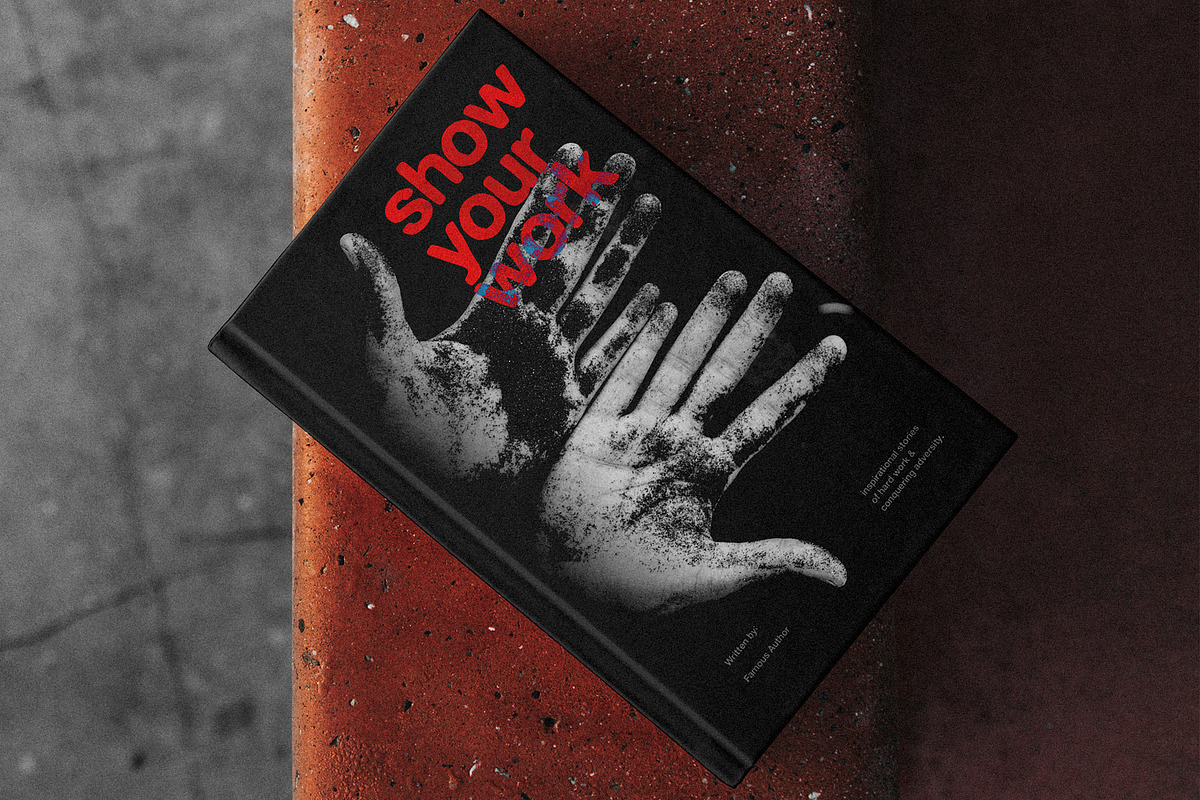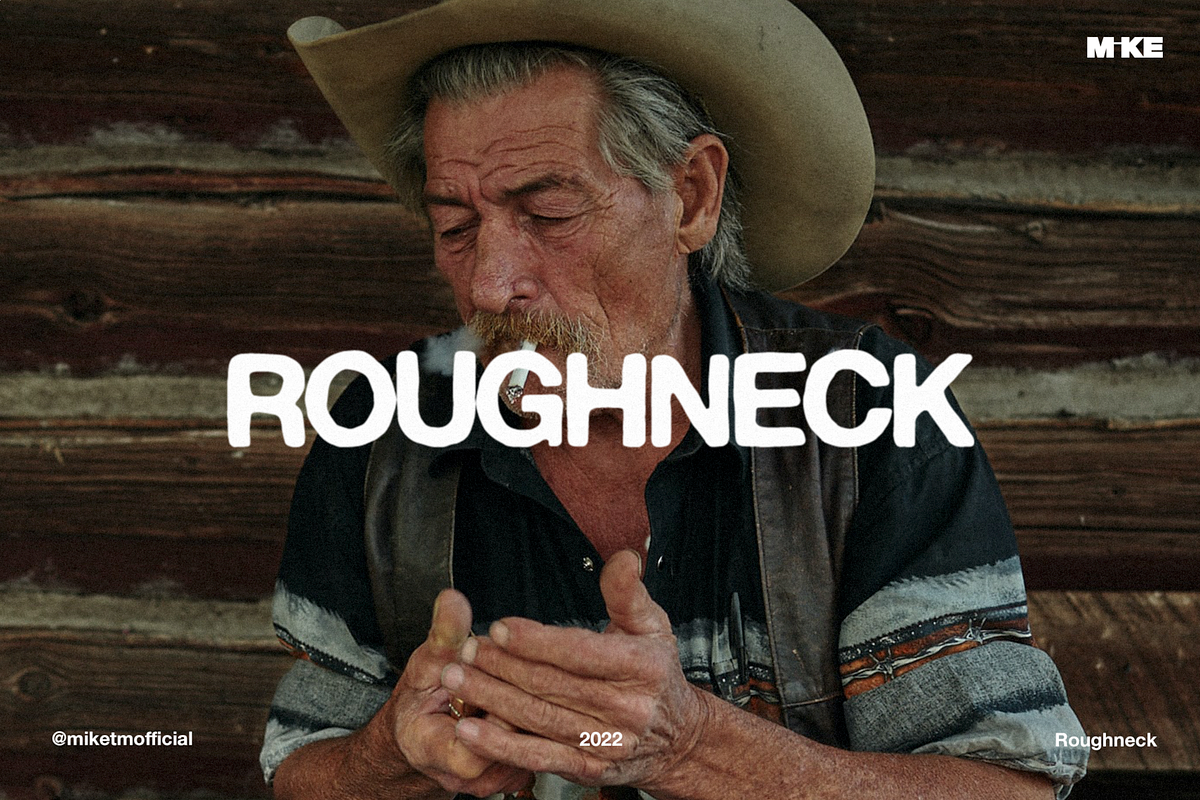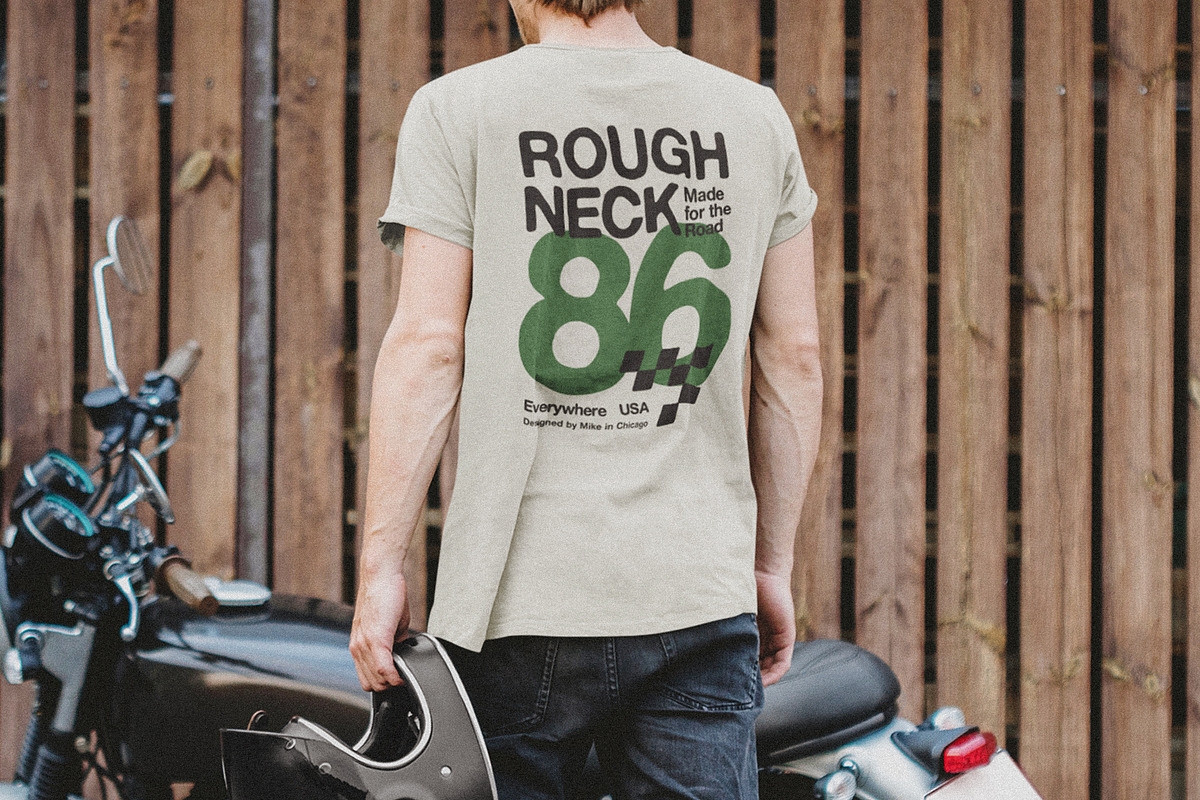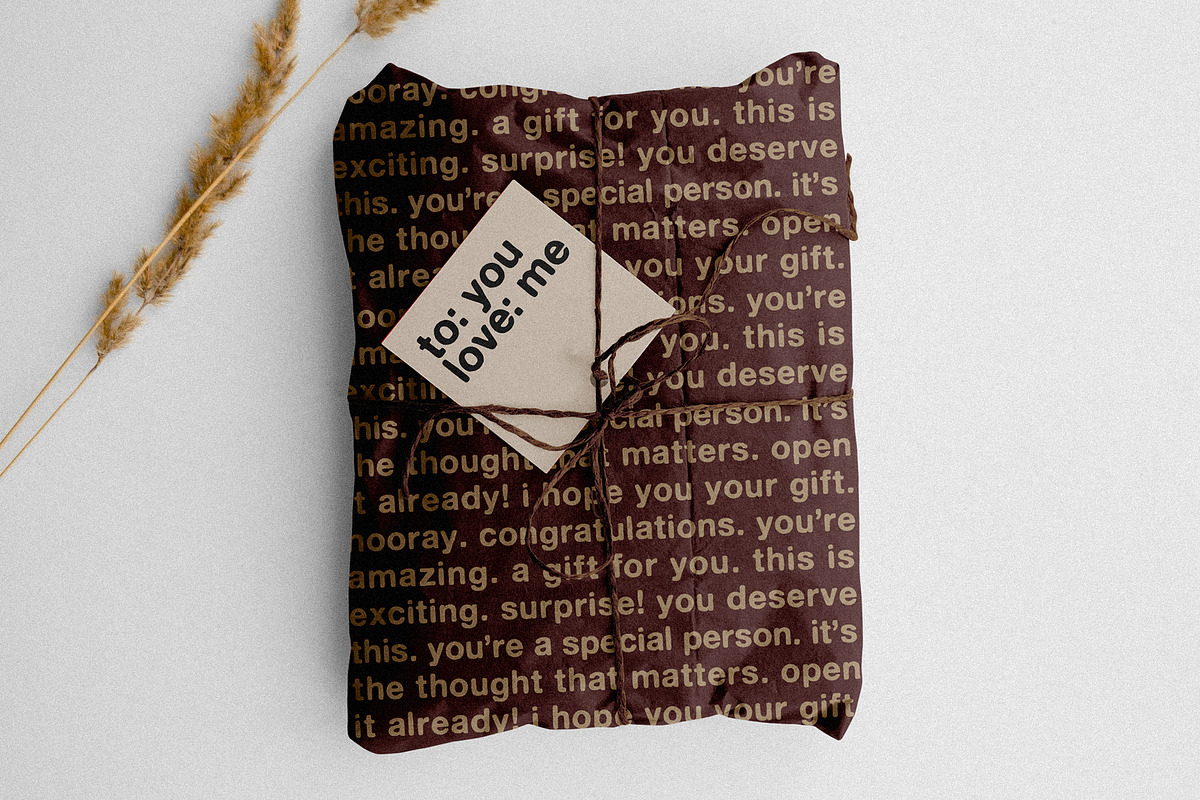
Roughneck Sans
Roughneck is a classic bold sans serif typeface designed to add a little more texture to your work. With it’s hand-crafted feel, it lends itself best to a vintage & heritage aesthetic.